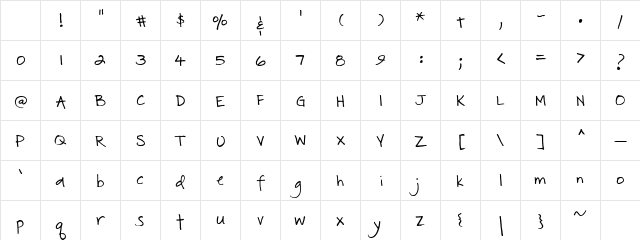
Complete CK Shannon Regular glyph index. Displaying only characters natively supported by CK Shannon Regular font.
CK Shannon is a composed and adaptable typeface that performs quietly and consistently across a wide range of design contexts.